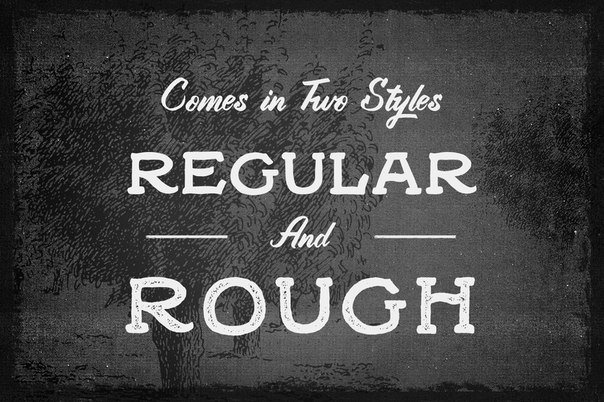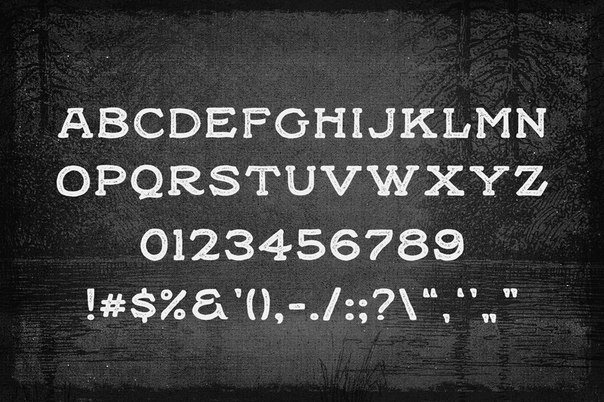
Black Willow Font
Black Willow Font belongs to the CSS family, falling under the category of fonts used in novels, imparting a playful appearance to the content. If you want to add a touch of whimsy to your writing, this font is a great choice for you. Keep reading to discover more about why this font can elevate your content to the next level.
Style Of Black Willow Font Free